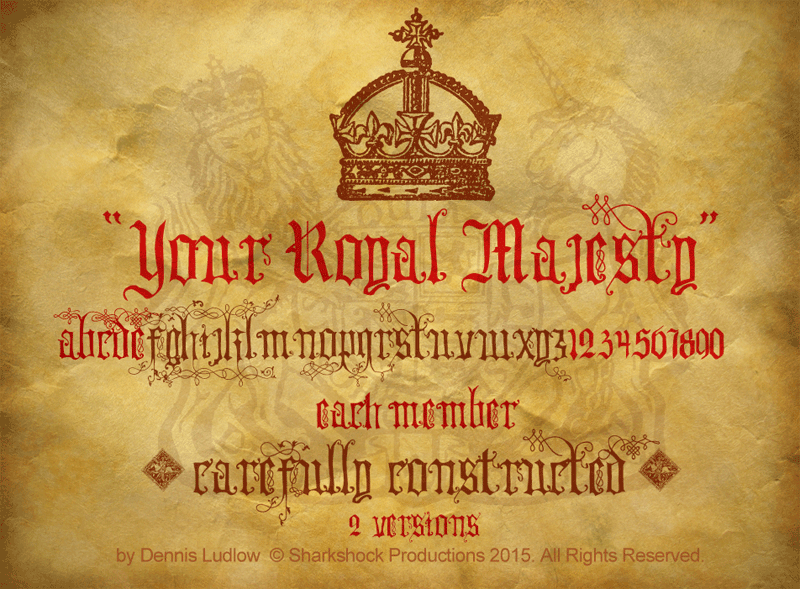
Thank you for downloading this most medieval of typefaces! Inspiration for this was snatched up from wood engravings and olde world manuscripts of the middle ages thru the 16th century. While very basic puntucation is present, most of the rest is replaced by symbols, crests, flags, crowns, and several other decorative graphics throughout the era. There are actually two different versions: "Your Royal Highness" is similar but omits pretty much 99% of the decorative lines found on the lowercase ascenders and descenders and contains full punctuation. This version is only available with commercial license. Feel free to redistribute as long as this readme file stays intact. This font is free for personal use only. For commercial use please contact me at dennis@sharkshock.net to discuss an end user license. I also design custom fonts for businesses, logos, and many other things. If you'd care to make a one time donation via paypal that would be most appreciated using the same email address. visit www.sharkshock.net for more and take a bite out of BORING design! |